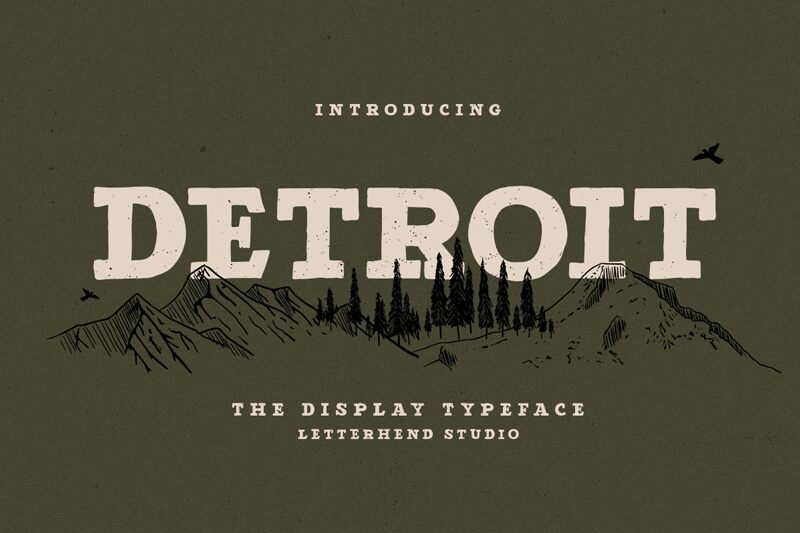
The bold and semi-expanded slab serif font, Detroit, designed by Letterhend Studio, exudes a vintage and industrial charm. With its sturdy and confident appearance, it is perfectly suited for projects that demand attention and evoke a sense of strength. Detroit is an ideal choice for branding designs related to automotive industry, urban fashion labels seeking a bold identity, eye-catching signage projects for cafes or bars aiming to captivate passersby with a retro vibe. Its versatile nature also makes it suitable for editorial designs like magazine headlines or book covers that require an impactful yet refined typographic presence.